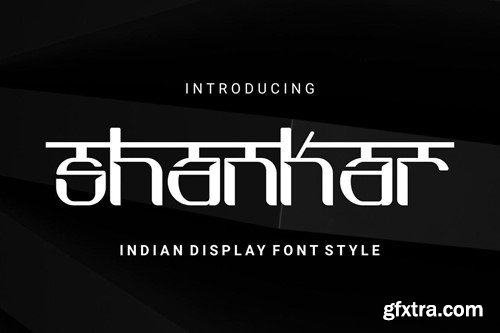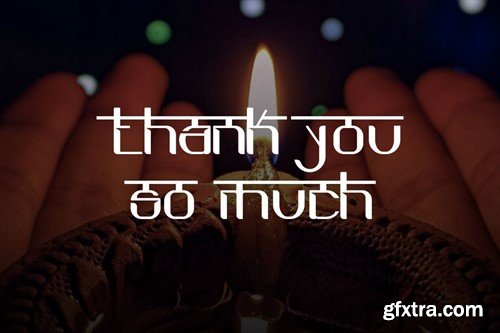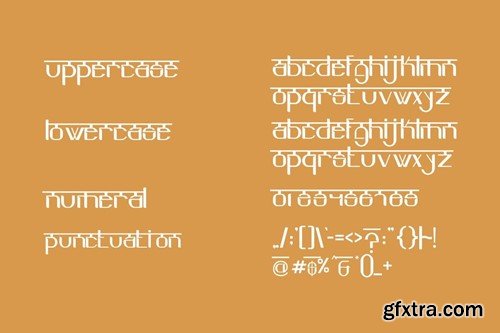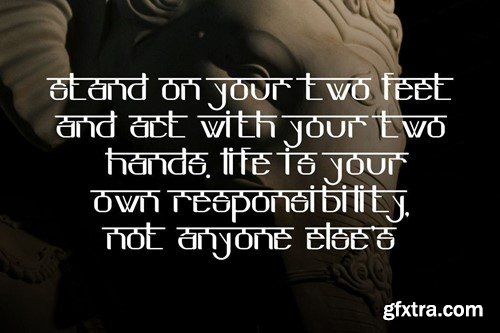
Shankar - 印度字体 83ZXL5H
Shankar - Indian Font
Introducing our new product Shankar - Indian Font Modern Font Shankar - Indian Font - Modern Font is a bold and authentic display font. The font is suitable for any branding project like logo, t-shirt printing, esport, and many more. outstanding in a wide range of contexts. Files How to instal fonts Features Images are not included, for presentation only Contact & Support Thank you for making your first purchase with Genta_design. If you have any questions, please contact us, we are happy to help! Don't forget to visit our Genta_design shop for more cool designs. Enjoy your create. :)